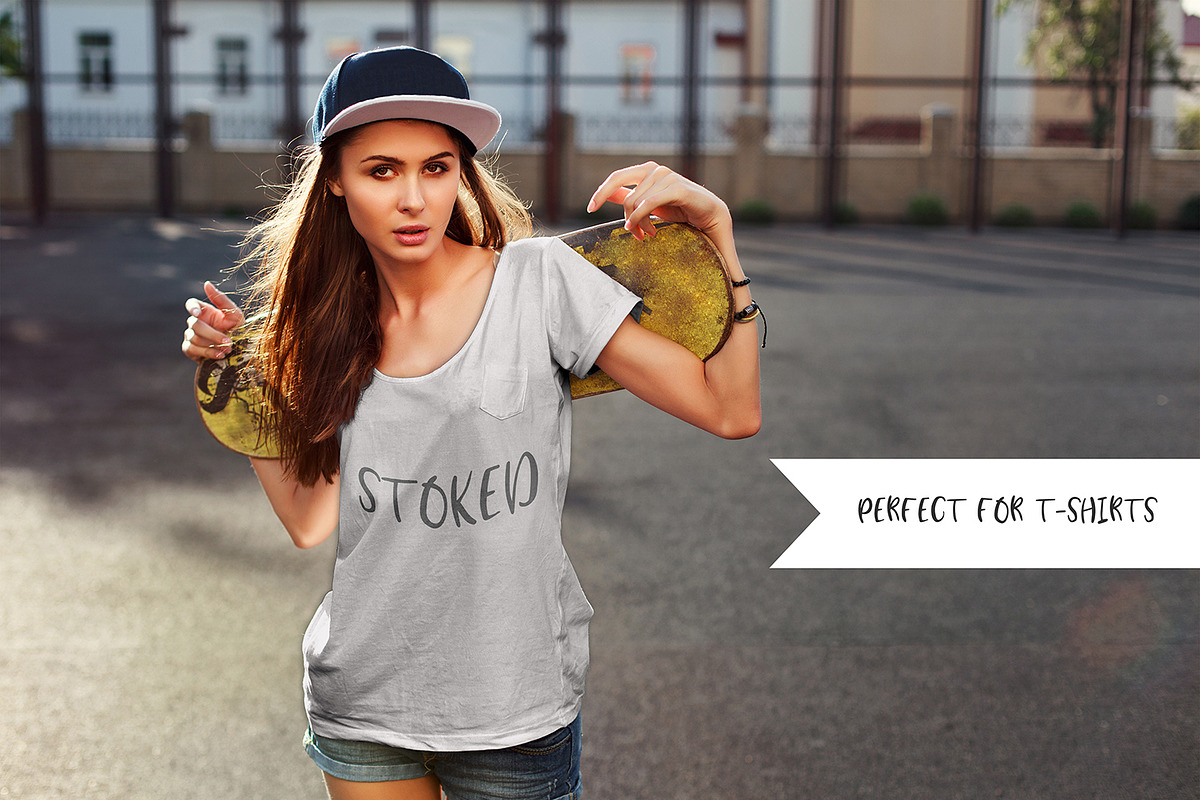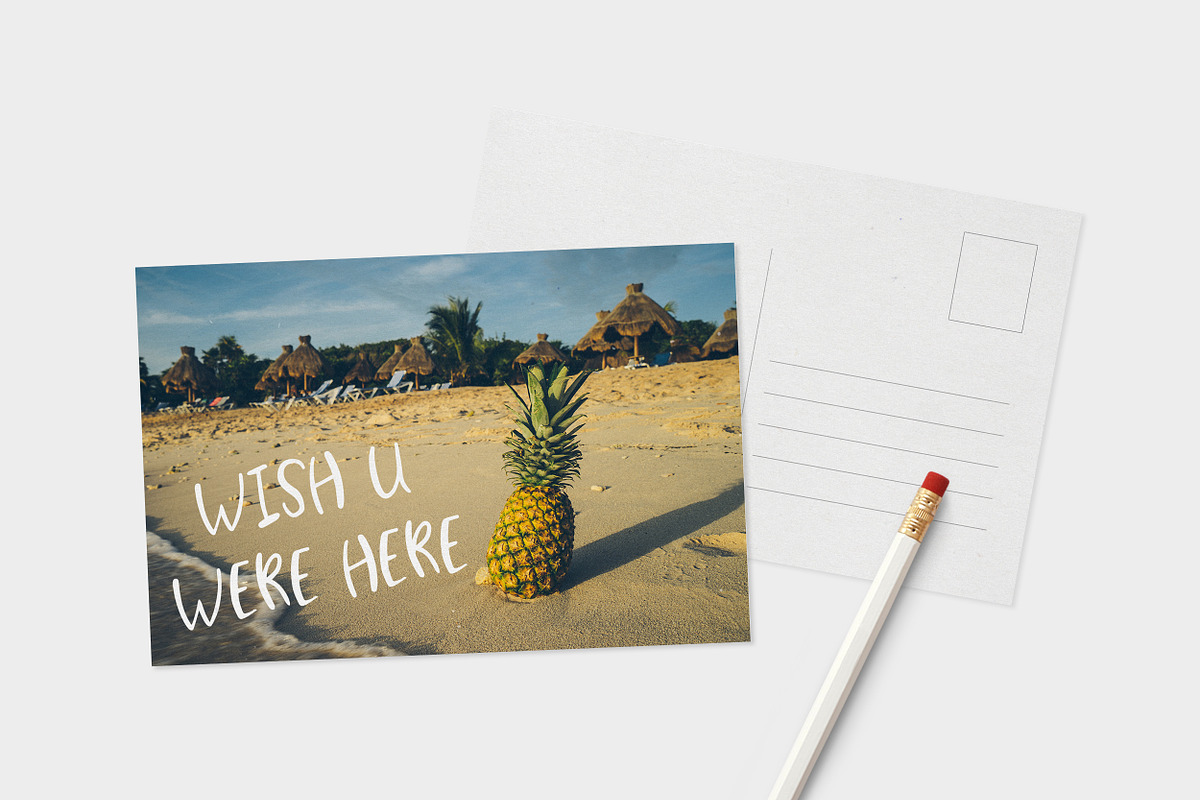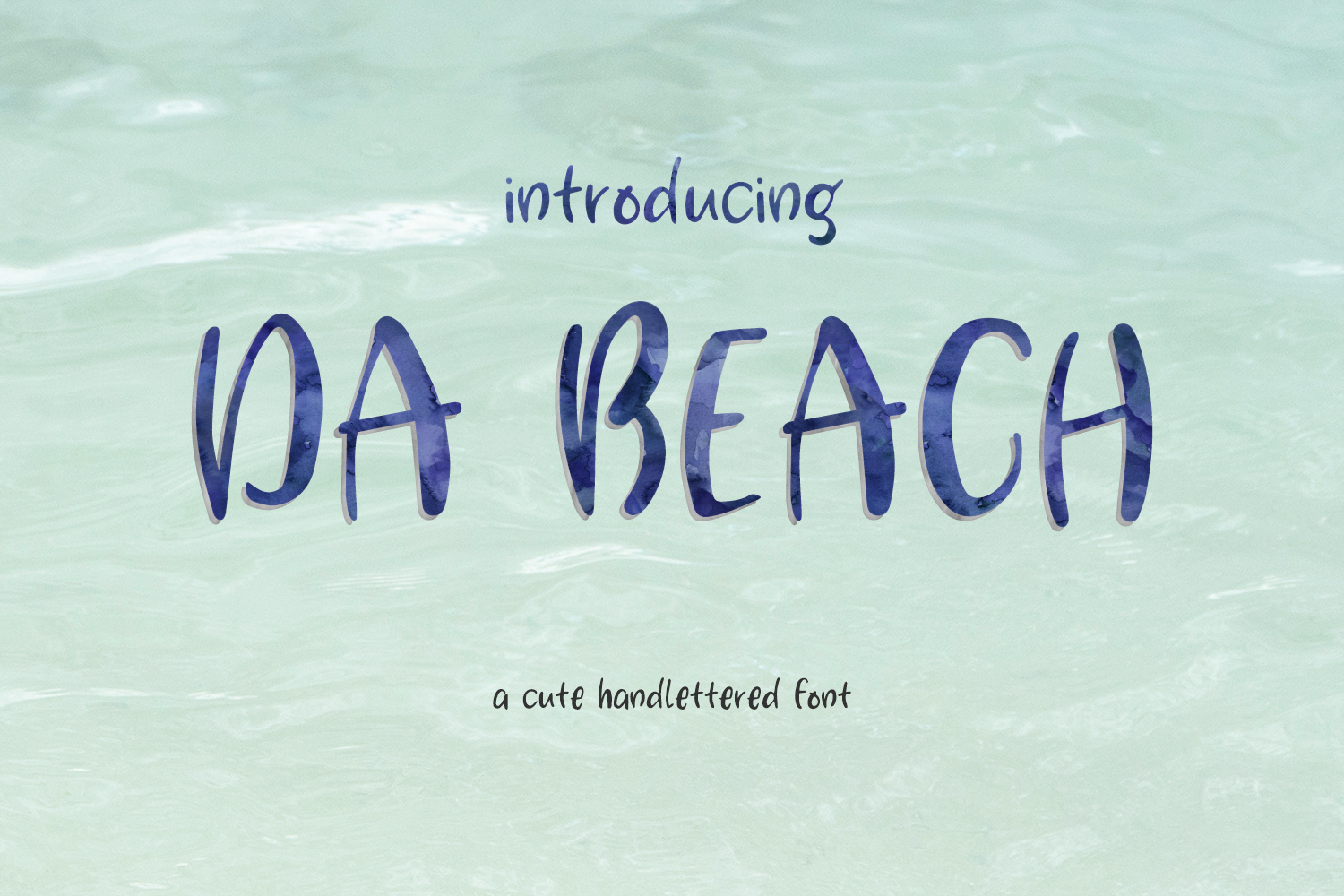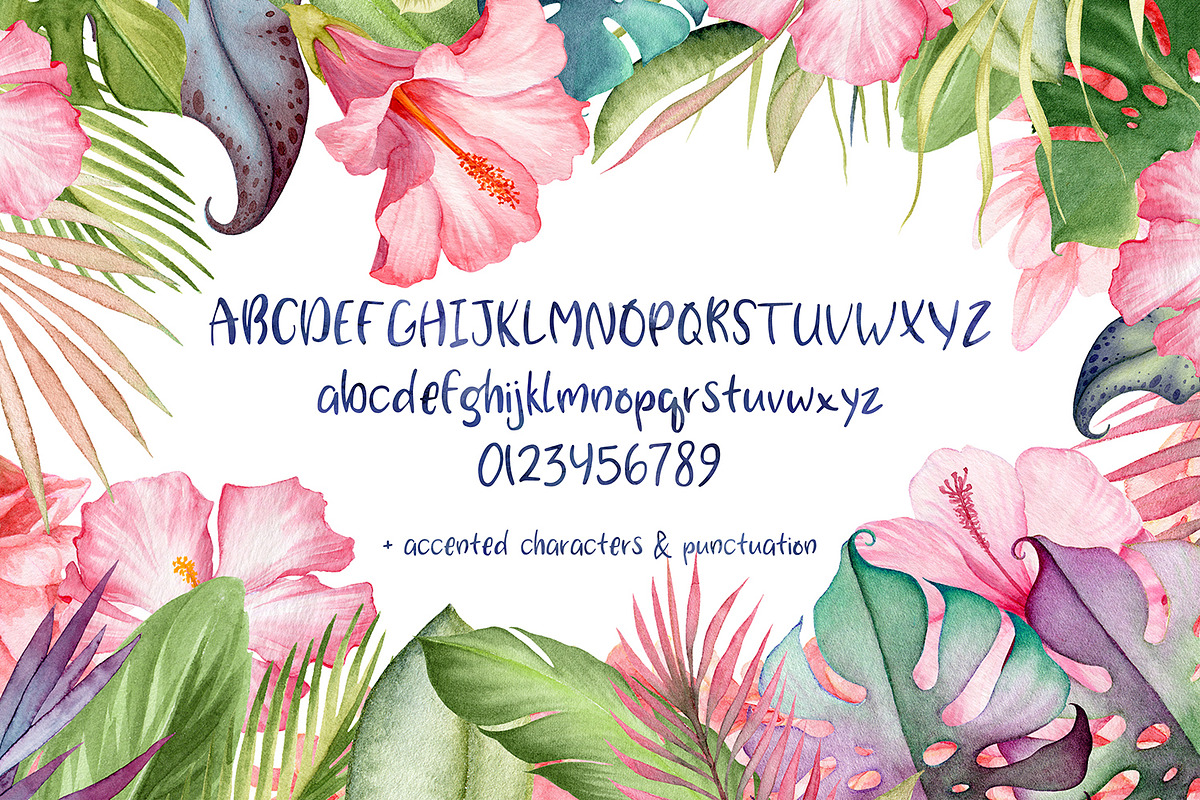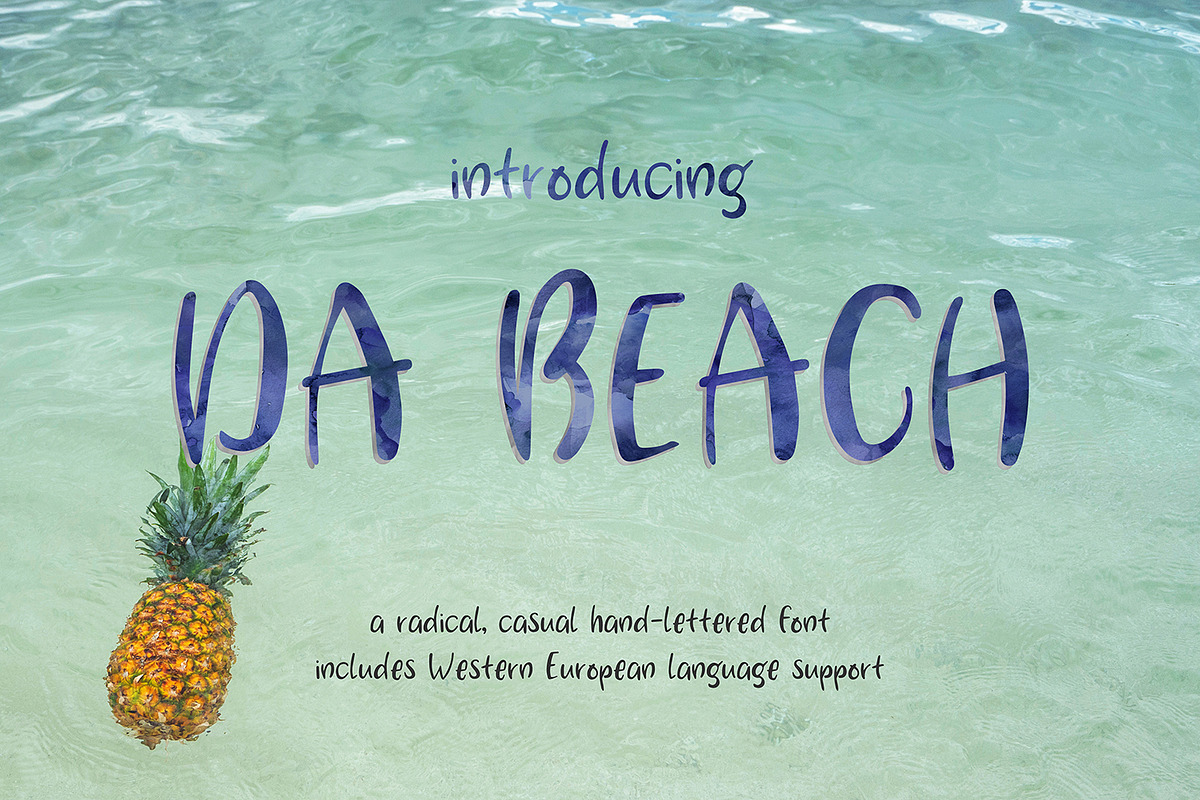
Da Beach Hand-lettered Sans Font
Growing up on the beach back east, and moving to the beach on the west coast, one thing has never changed. That beachy vibe. Inspired by the casual, easy-going nature of life on the beach, Da Beach is a fun sans font hand-lettered on an iPad.